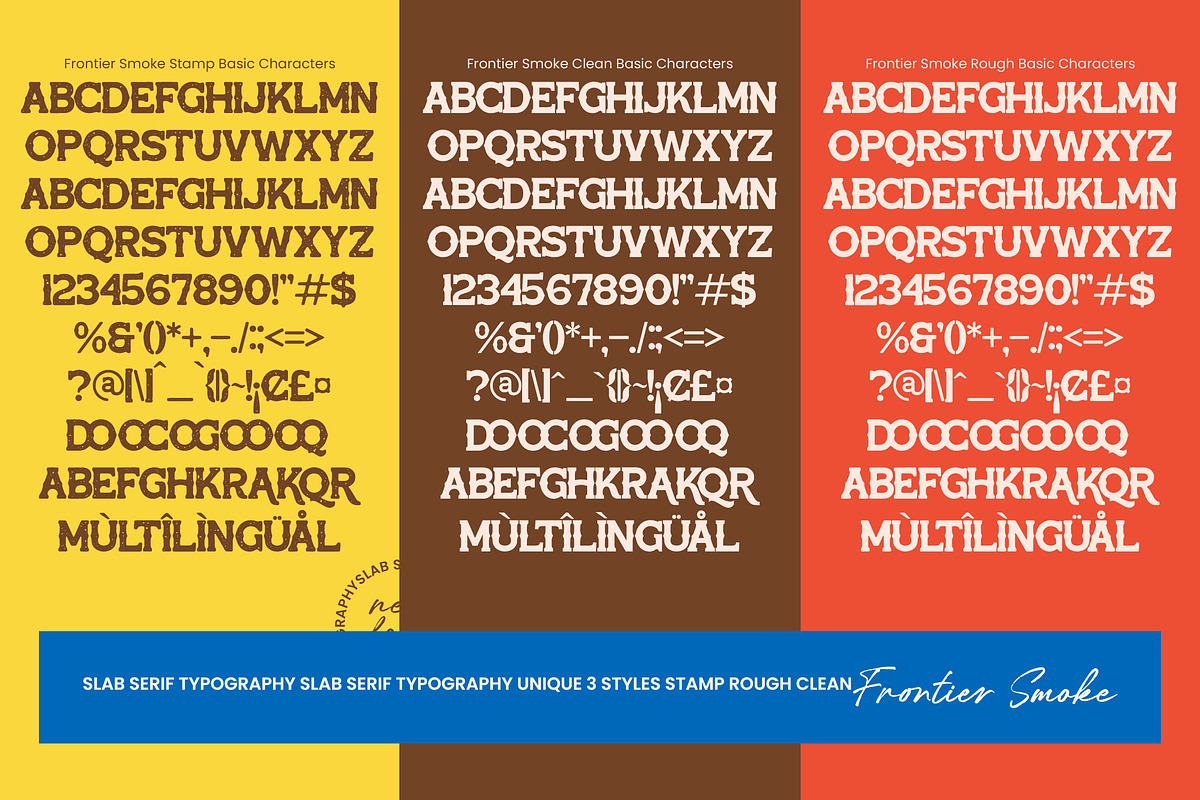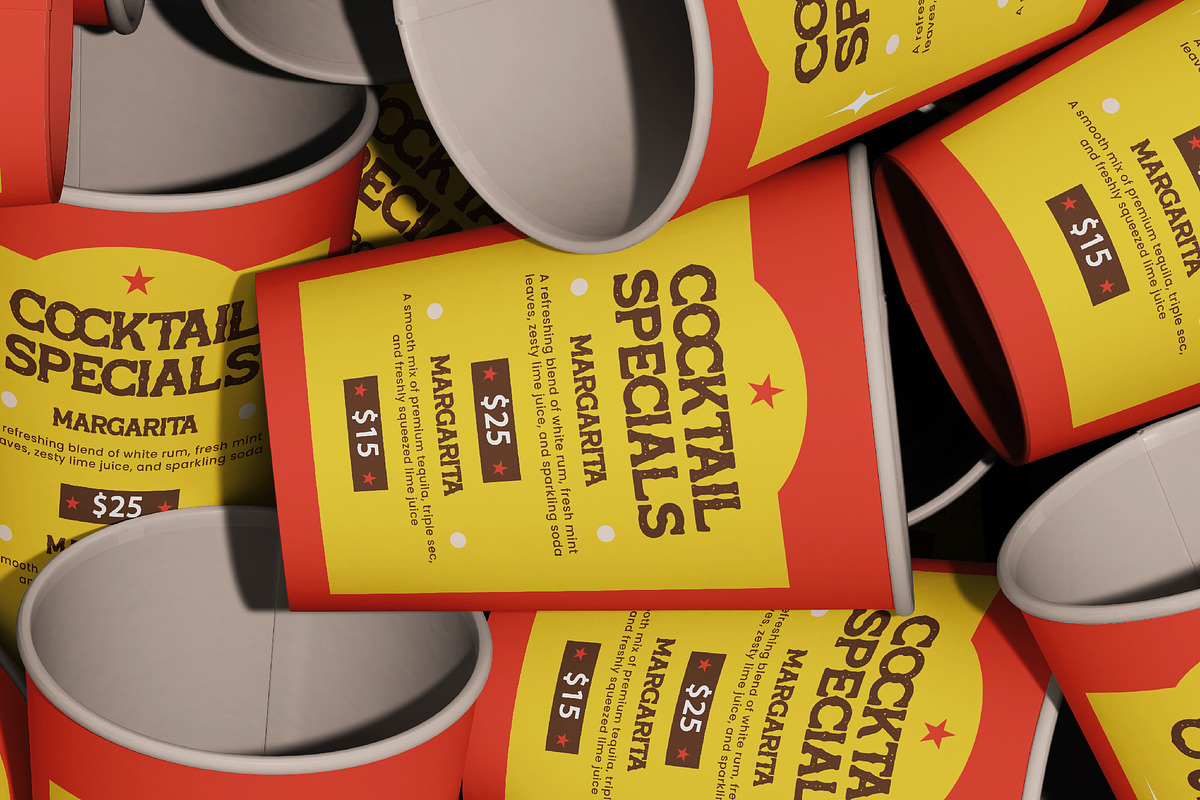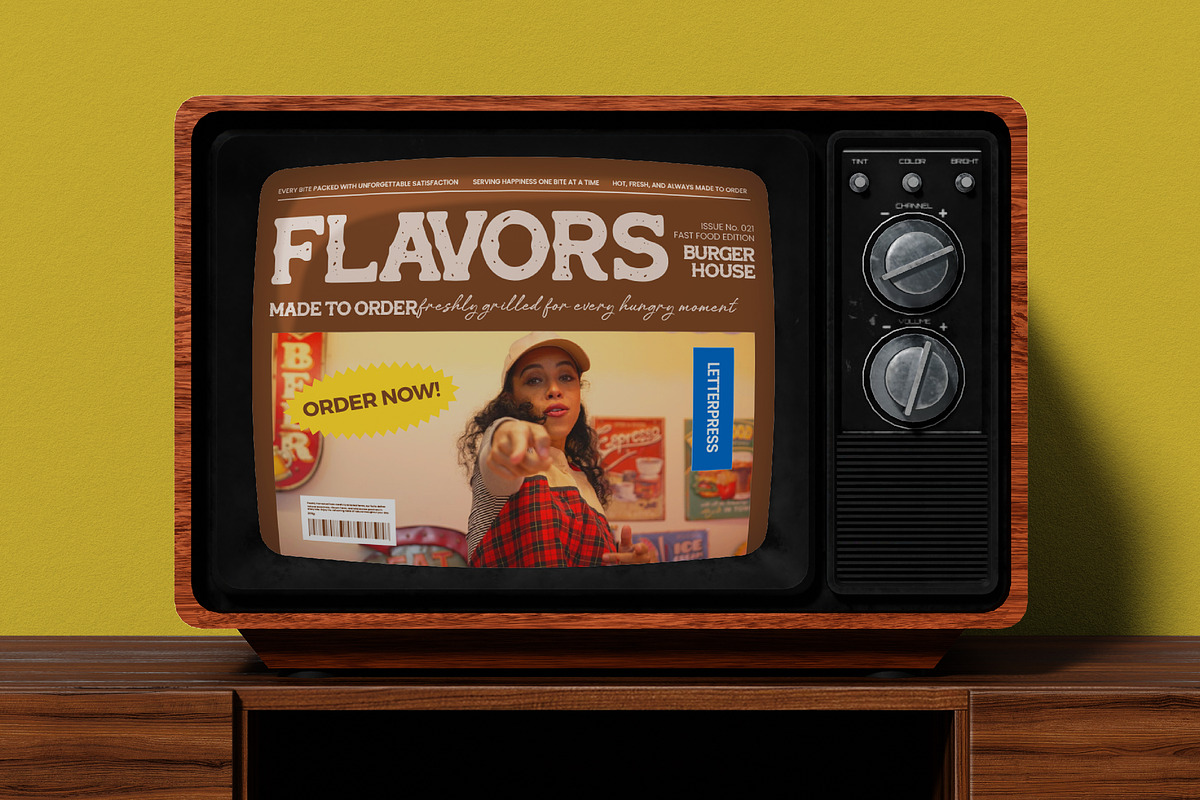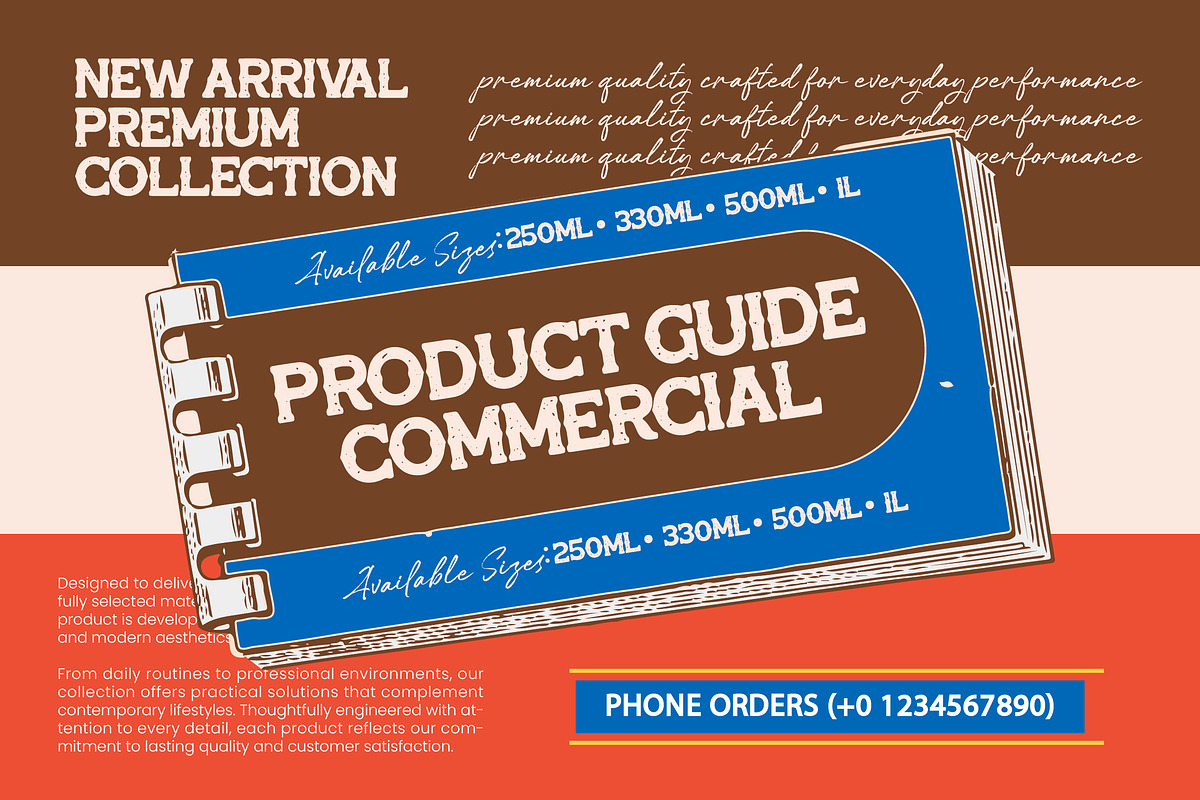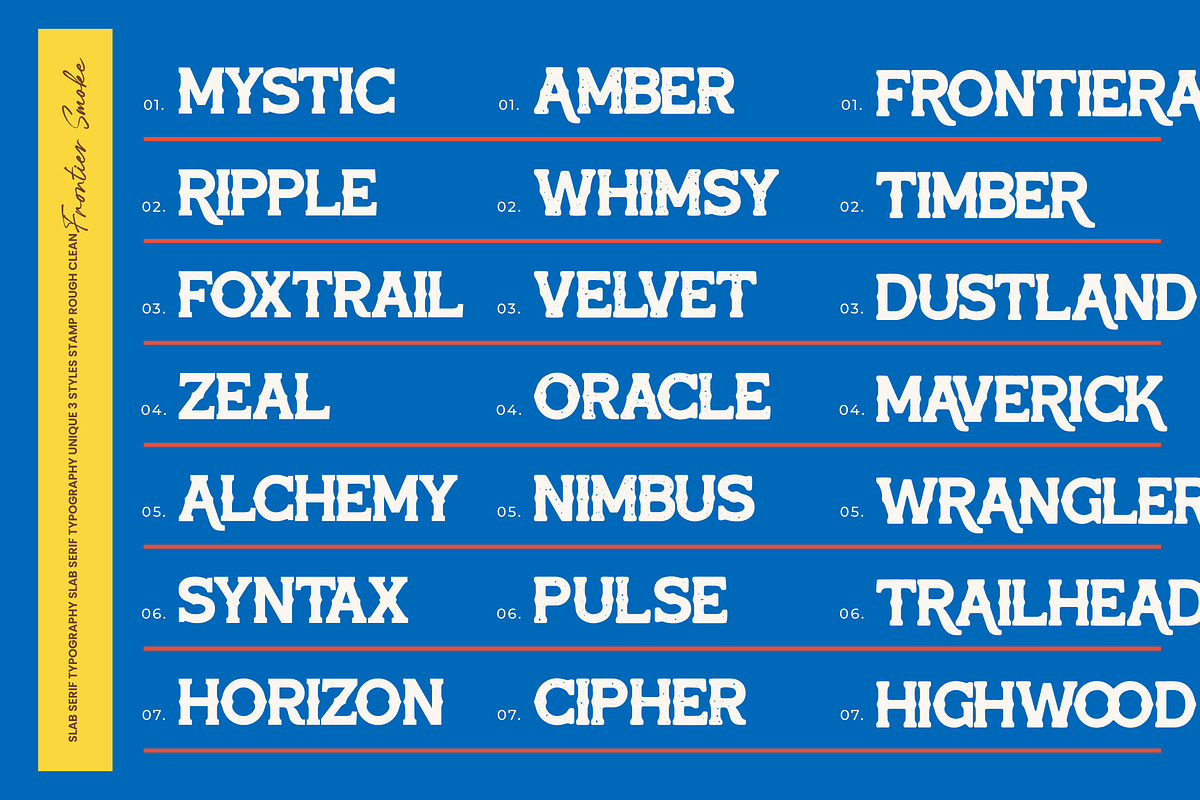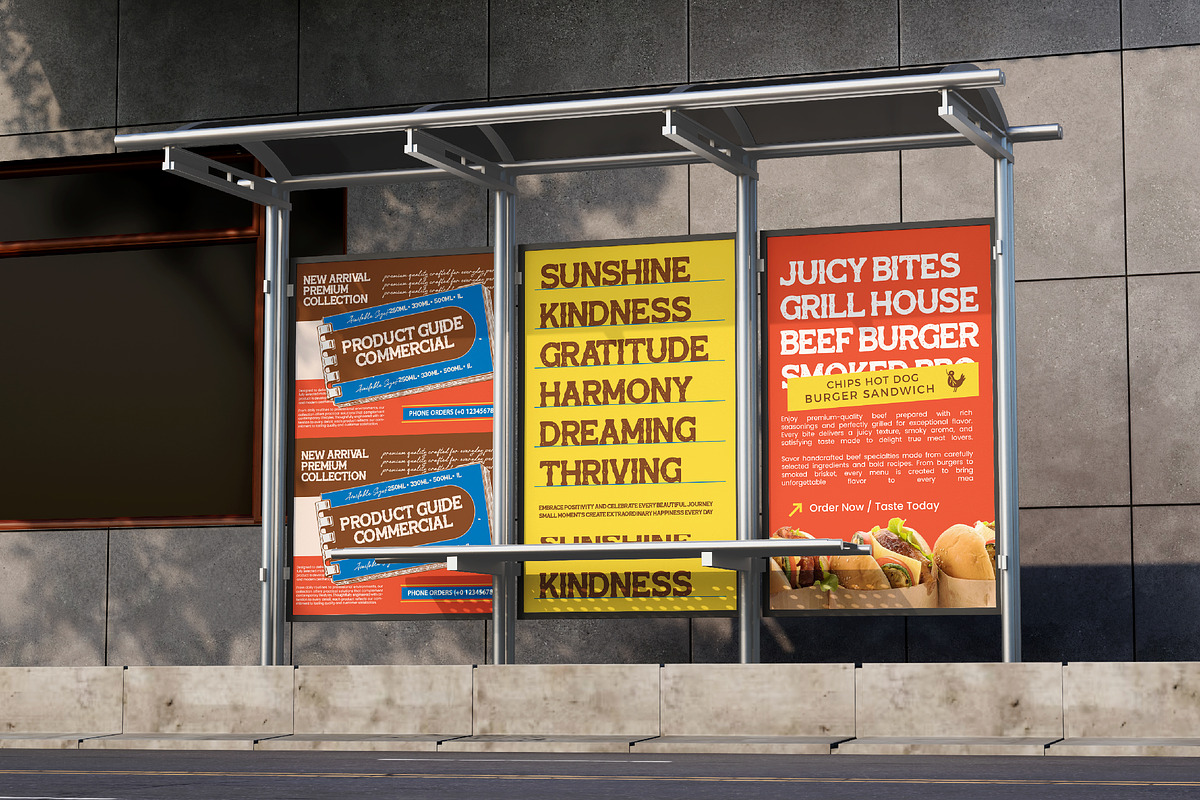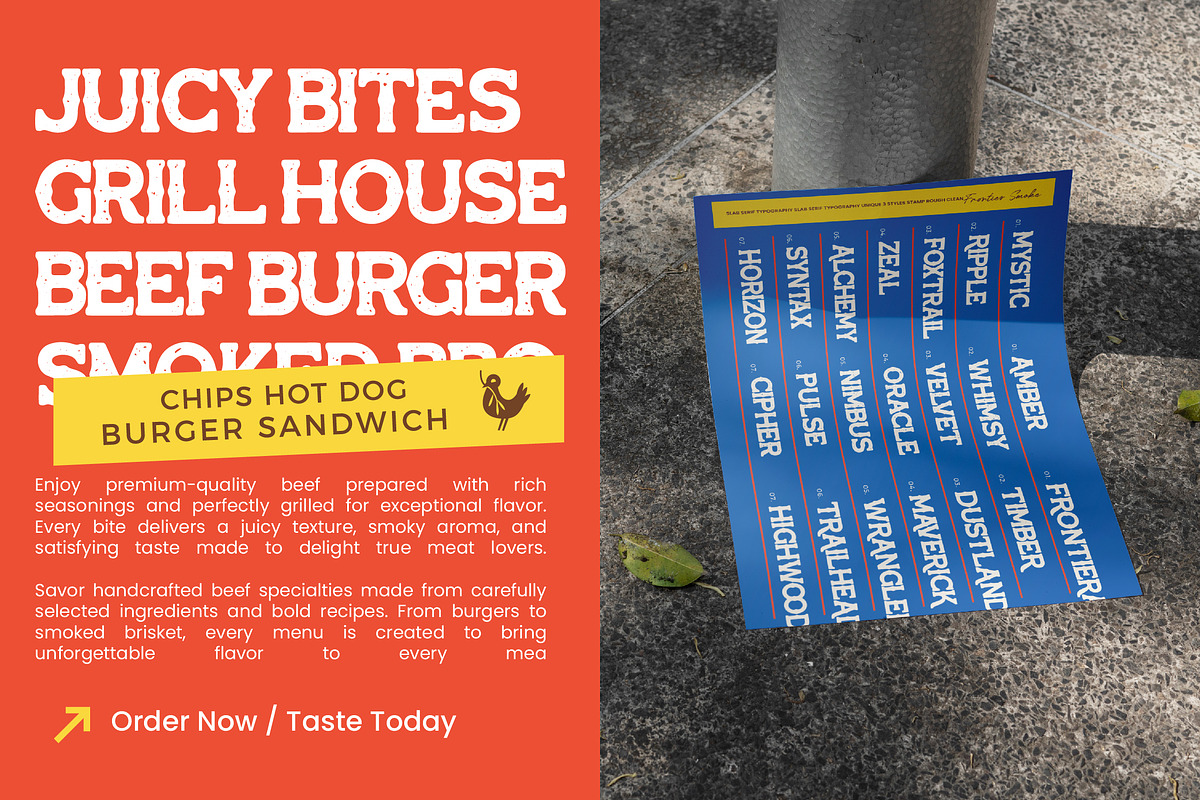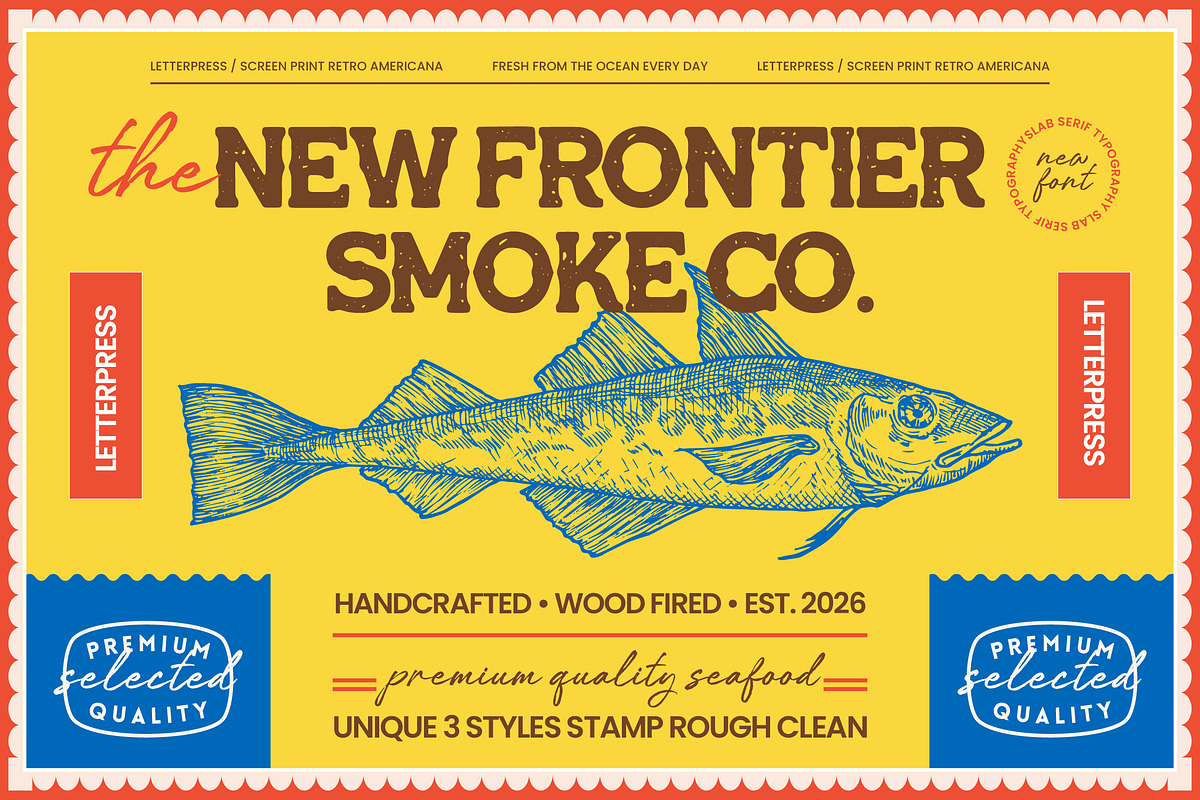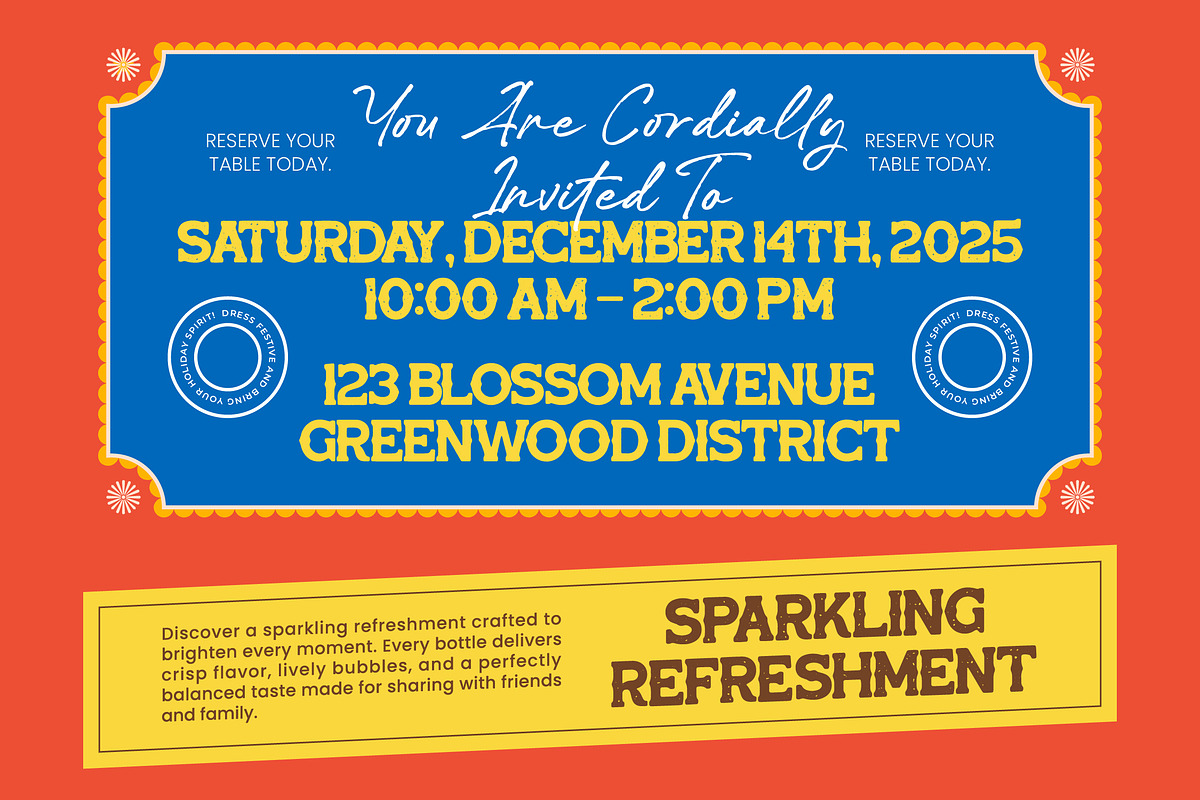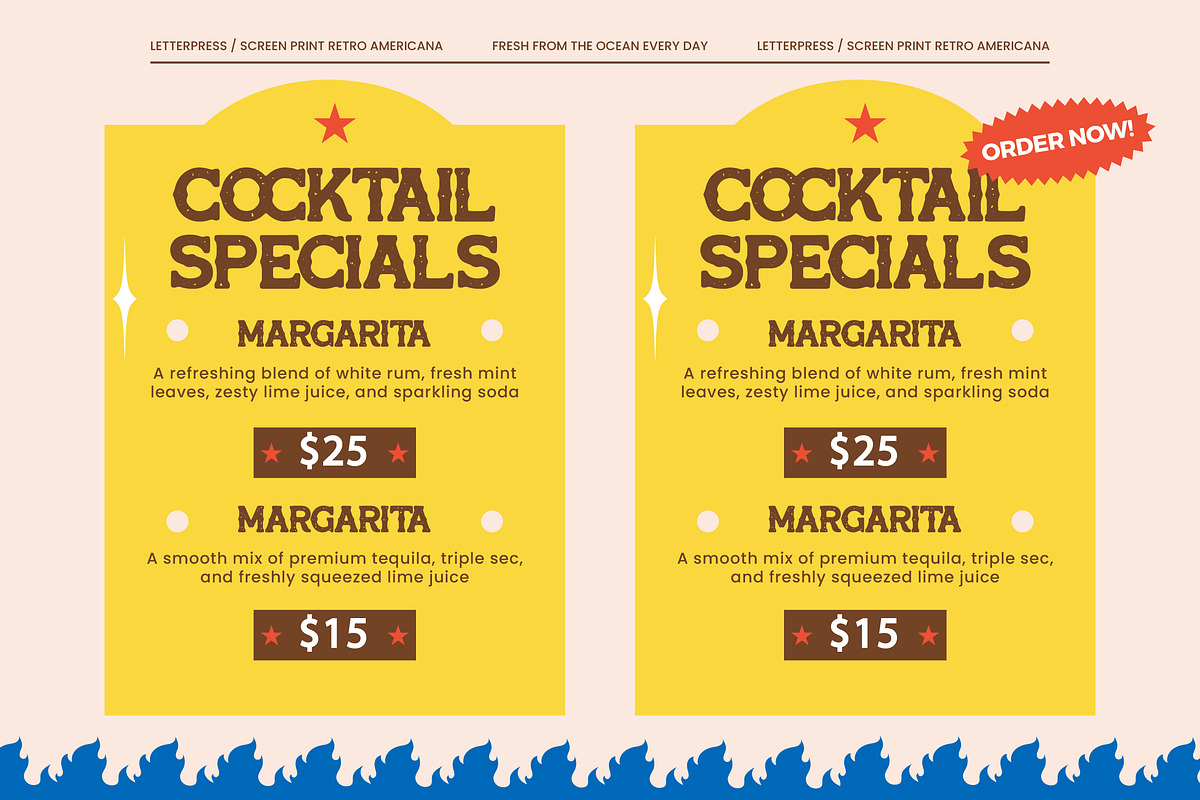
Frontier Smoke Typography Slab Serif
Frontier Smoke - Typography Slab Serif , Command attention with the timeless strength of Frontier Smoke - Typography Slab Serif, a powerhouse of rugged authenticity designed for modern creators. This vintage-inspired slab serif captures the essence of classic letterpress printing, offering a bold and commanding presence that resonates with history and craftsmanship. Its thick, sturdy strokes provide an immediate visual impact, making it an essential asset for designers looking to inject a sense of heritage and reliability into their creative work.
With its extensive multilingual support, Frontier Smoke - Typography Slab Serif adapts seamlessly across global markets, making it incredibly versatile for international projects. This technical flexibility ensures that your brand message remains consistent and powerful, regardless of the linguistic requirements, providing a reliable typographic solution for worldwide distribution. Expand your creative reach across borders with a typeface built for the demands of the modern global economy.
Master the art of textural depth with a font system that offers unparalleled design versatility and stylistic depth. By featuring multiple styles—ranging from stamp and rough textures to a sharp, clean aesthetic—Frontier Smoke - Typography Slab Serif allows for complex layering and varied visual outputs. These handcrafted textures simulate the natural wear of wood-fired prints and screen-print Retro Americana, giving your digital designs a tangible, high-end feel that stands out in a crowded marketplace.
Redefine your brand identity and elevate your visual storytelling with the perfect tool for high-impact design. Frontier Smoke - Typography Slab Serif is the ideal application for heritage branding, premium packaging, and artisanal logos, making it perfect for the food and beverage industry, outdoor lifestyle brands, and editorial design. Whether you are crafting a standout label for luxury goods or a bold headline for a lifestyle magazine, this font delivers a sophisticated yet gritty edge that is perfect for high-end commerce.